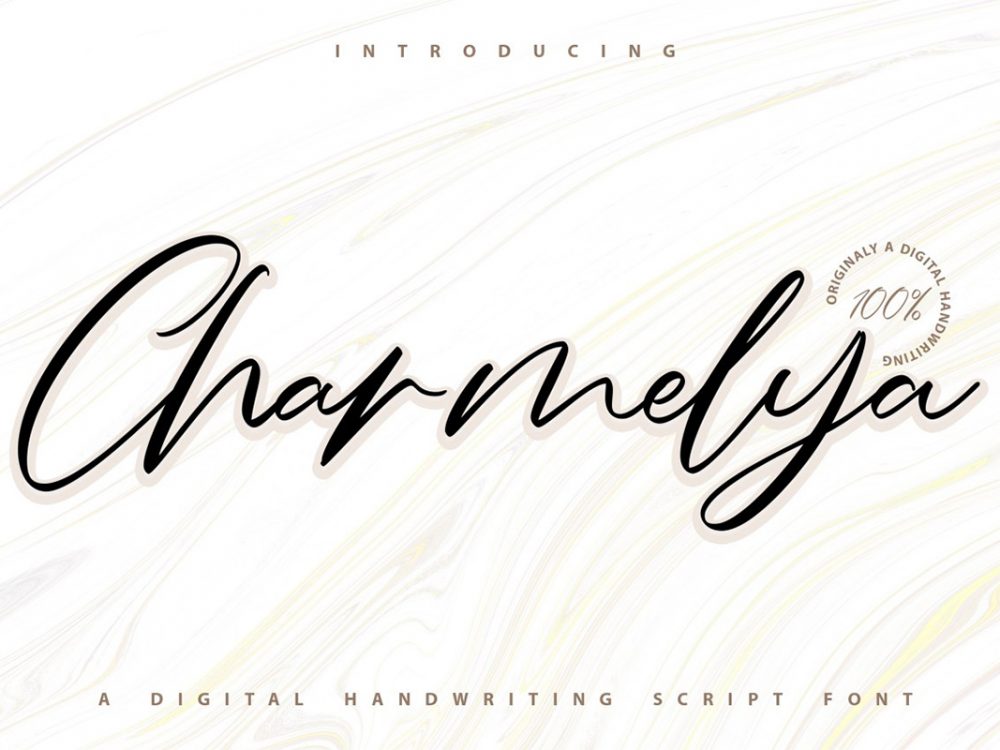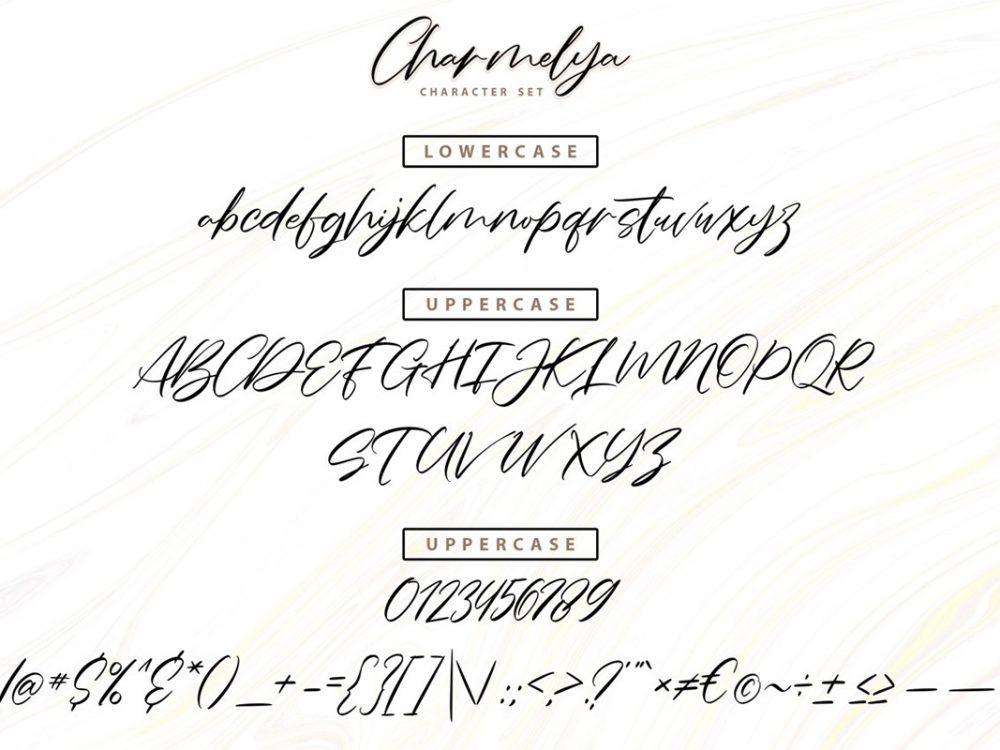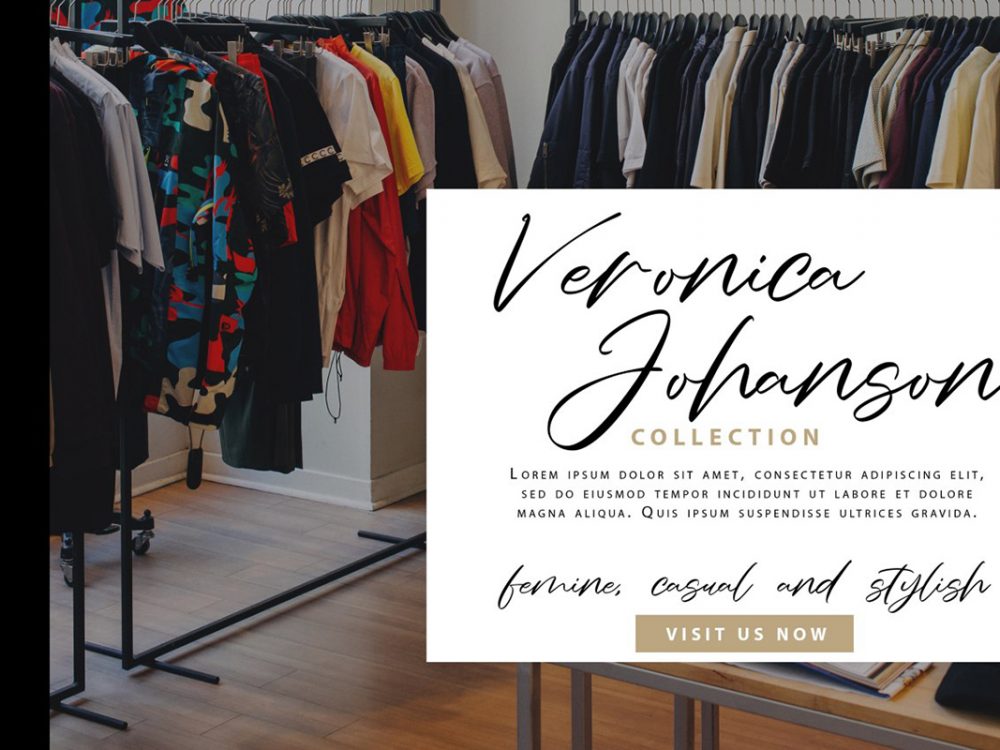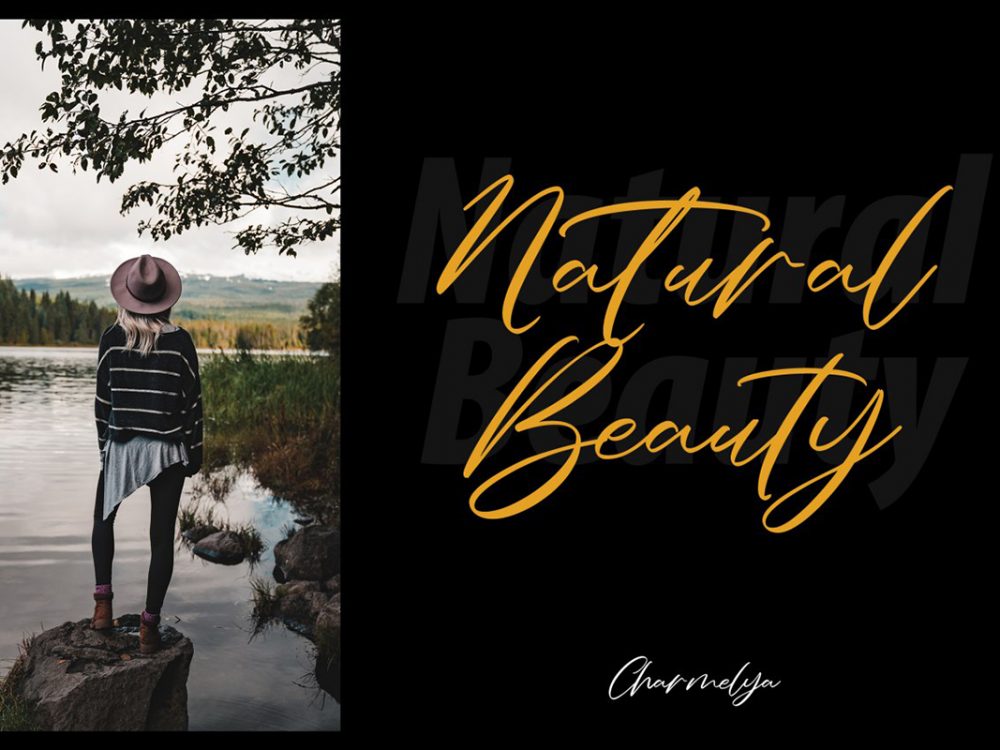
Charmelya Free Font
Charmelya Free Font is a lovely handwriting typeface that sets itself apart from other fonts in modern calligraphic style. This font is very suitable for creating various projects that require a scripted handwritten font. Use this font to create memorable romantic posters, wedding invitations, greeting cards, branding, label, photography, watermark, invitation, stationery, and more. Improve your professional level using this font. If you like it don’t forget to check out the full version.